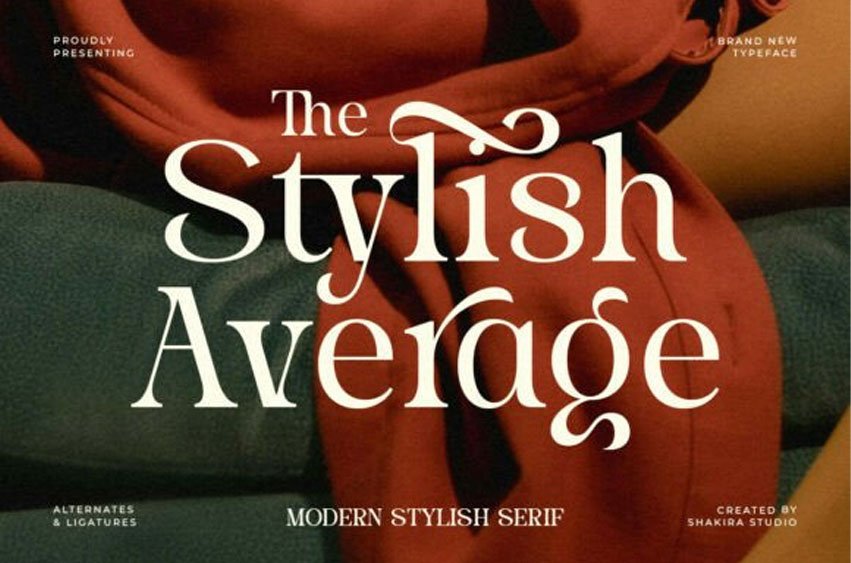
Stylish Average Font is a modern elegant serif typeface created for stylish branding and refined editorial design. Its smooth curves and balanced contrast create a sophisticated typographic tone suitable for luxury logos and premium identity.
Perfect for fashion branding, beauty packaging, magazine layouts, and boutique logos, Stylish Average delivers elegant presence with modern flexibility.
Designed to bring stylish luxury into contemporary typography.